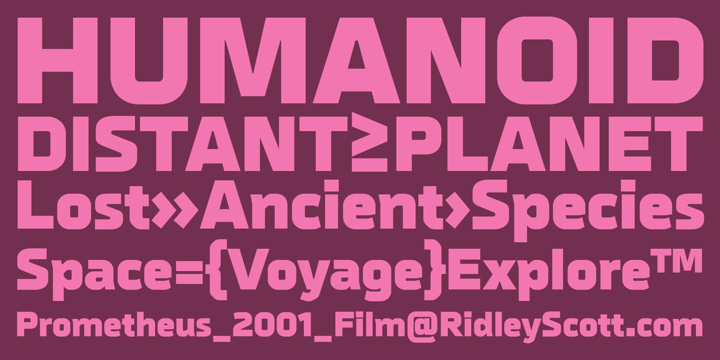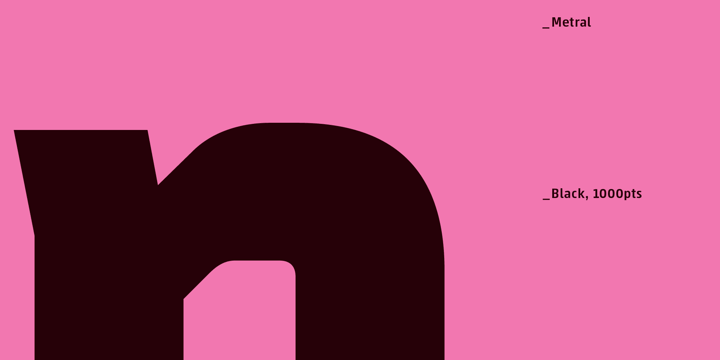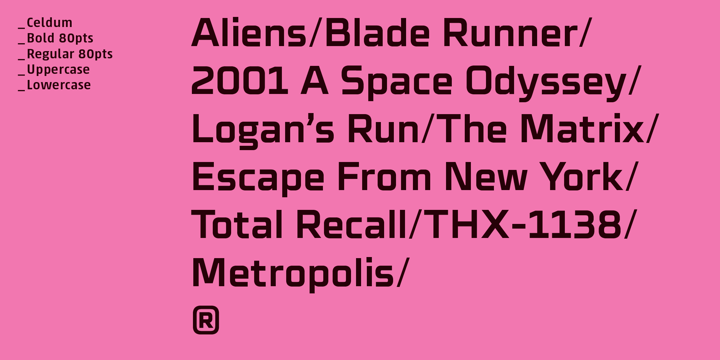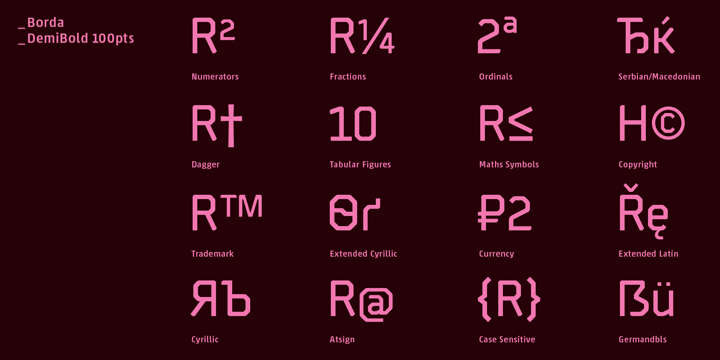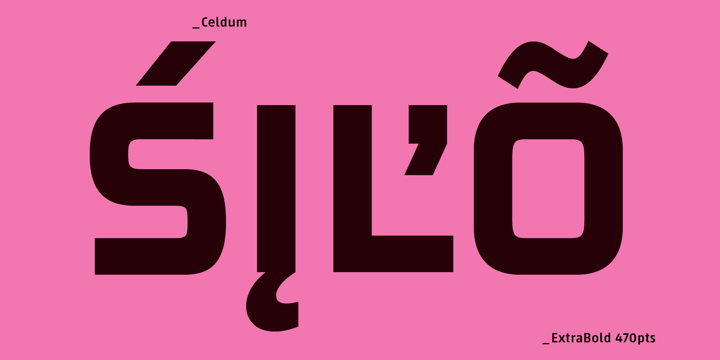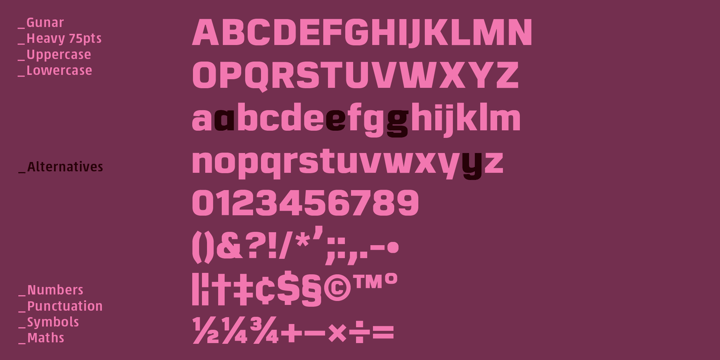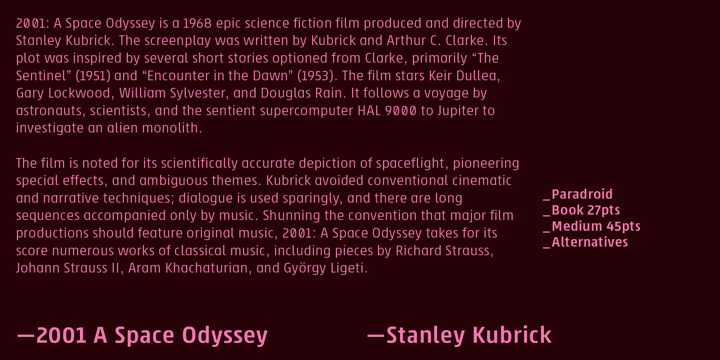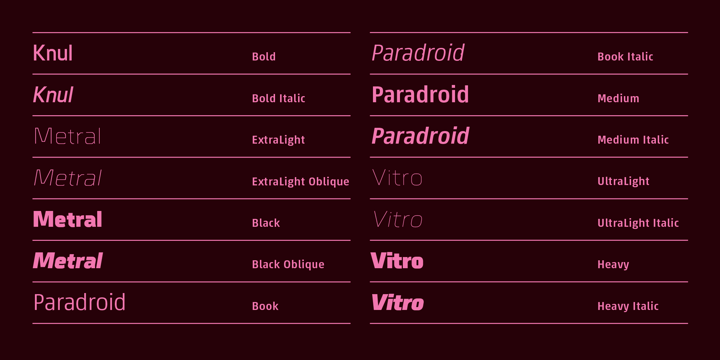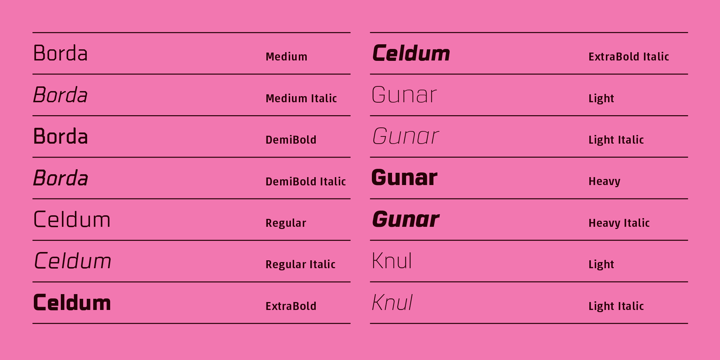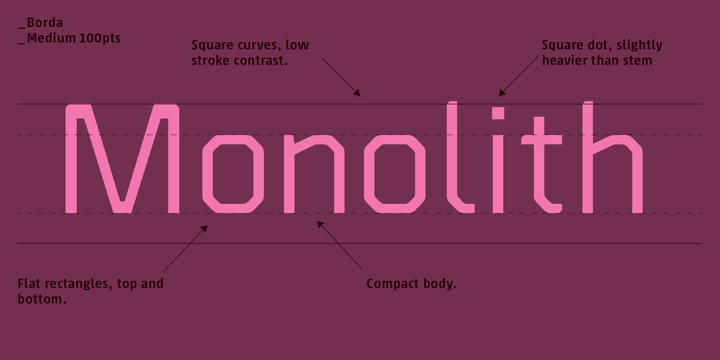
Futurist
The Futurist bundle is a compact compilation of fonts inspired by technology, science fiction, and video games. Reflecting The Northern Block’s forward-thinking ethos, this collection combines practicality with cutting-edge design, making it the ideal choice for modern and experimental projects.